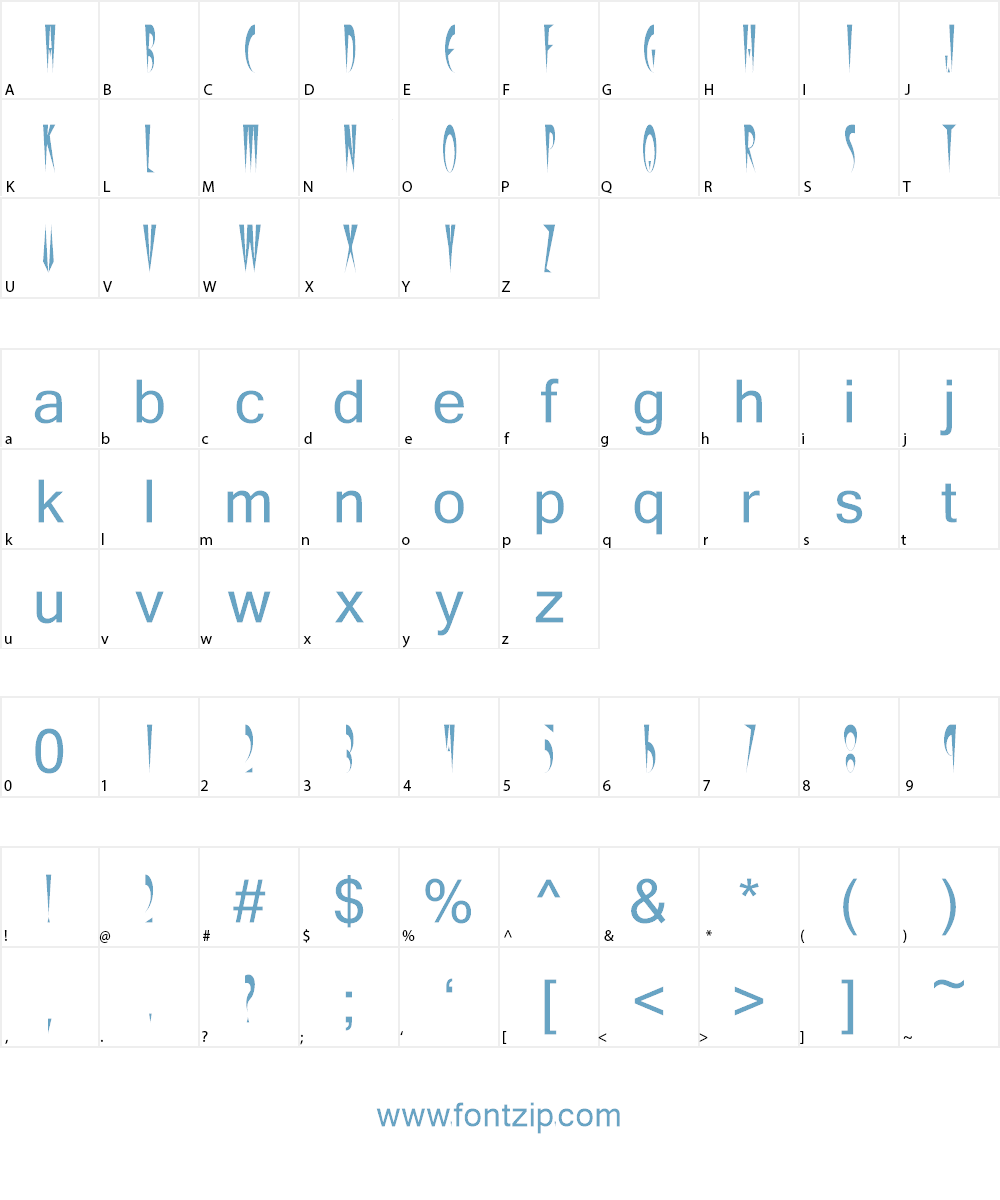
KrisKris is an even sharper and more condensed version of Stiletto! This one cuts like a surgeon's blade. Same scary ambience to the type face (I was seriously going to sit down and do a "classic" caligraphy font, but this just came out instead.)